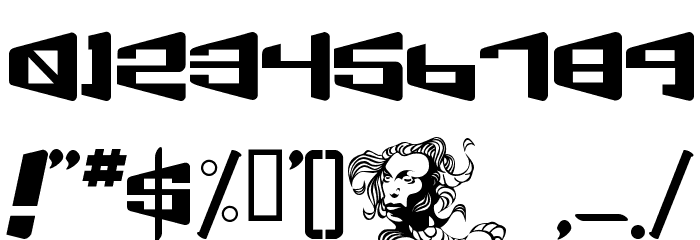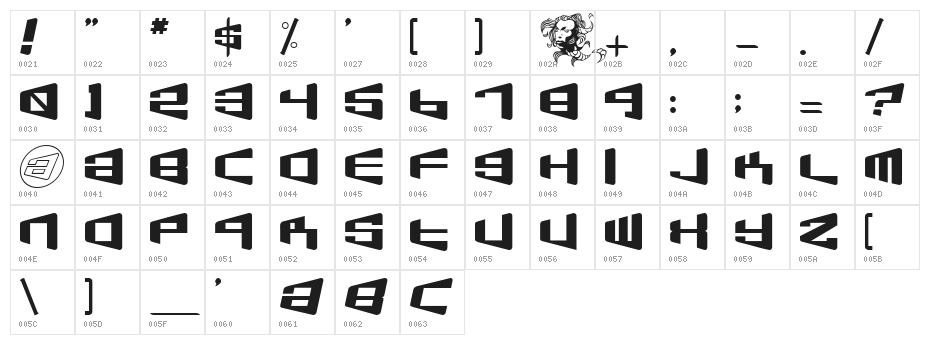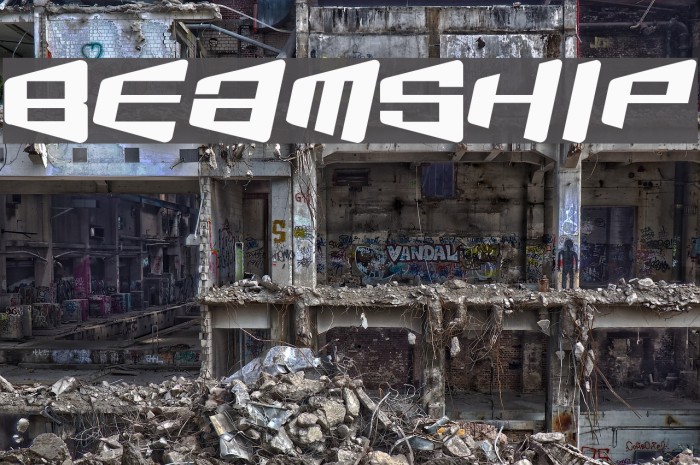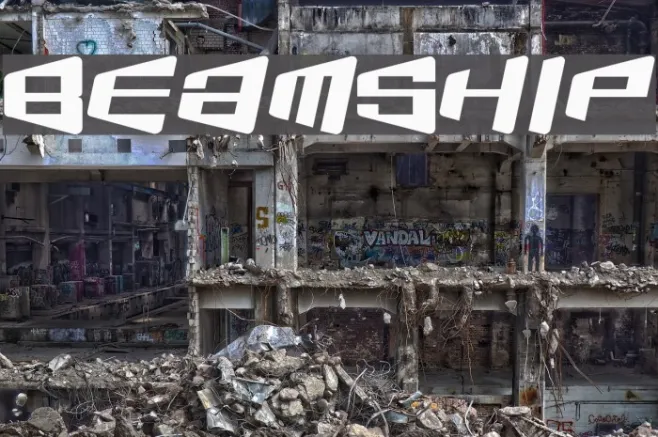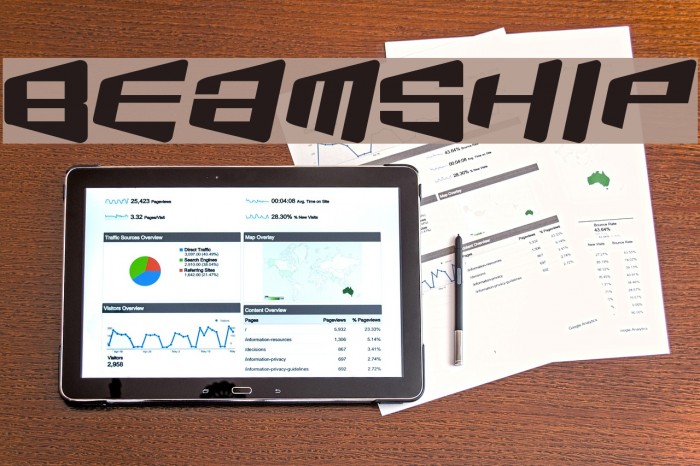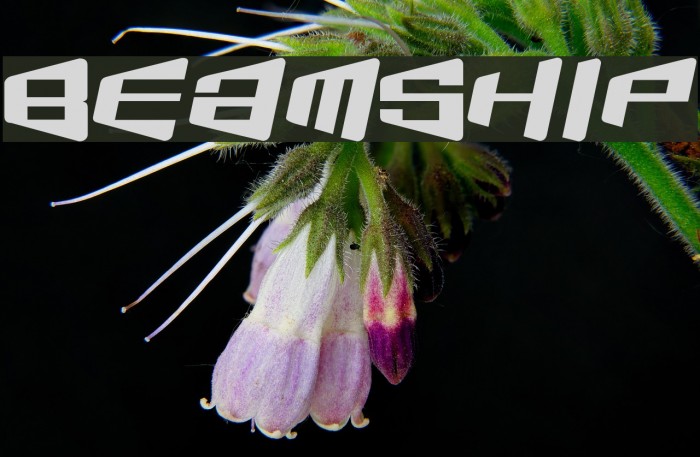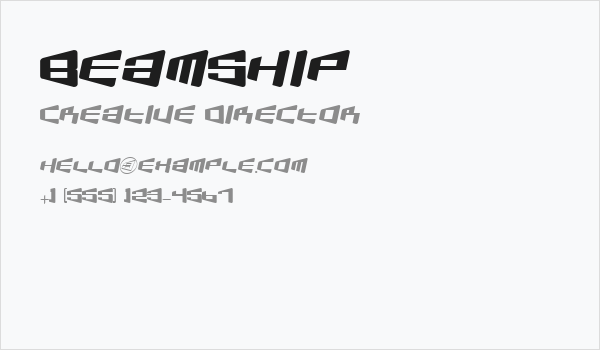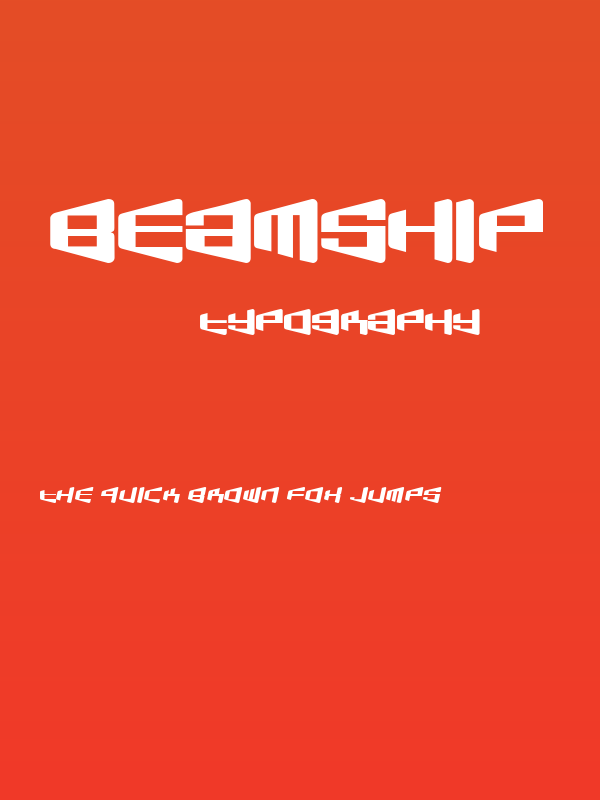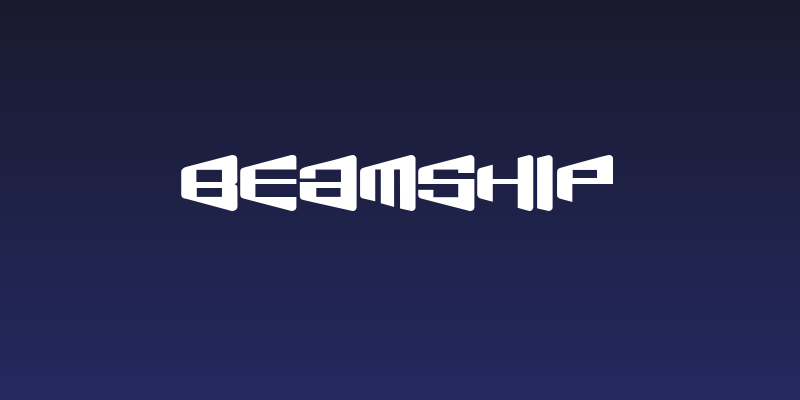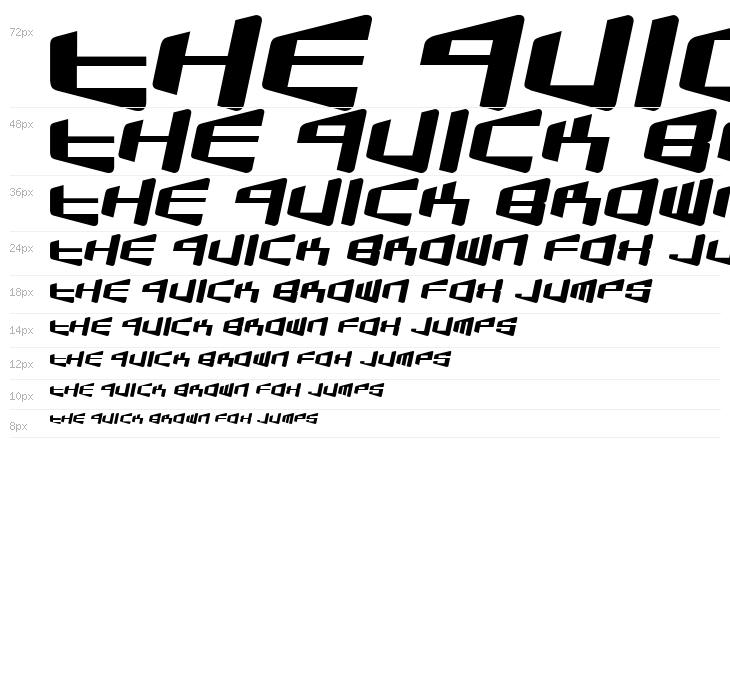
BeamShip Font
BeamShip Description
This font features a futuristic and angular design, characterized by its bold and geometric letterforms. The uppercase and lowercase letters maintain a consistent style, with sharp edges and a slightly slanted orientation that gives a sense of motion and modernity. The numerals and special characters follow the same design principles, ensuring uniformity across all glyphs. The font's unique style makes it stand out, suitable for projects that require a contemporary and edgy look. Its distinct appearance is ideal for use in science fiction themes, technology branding, or any creative work that aims to convey innovation and forward-thinking.
| Proposed Projects | Ideal for sci-fi themes, tech branding, video game titles, and innovative design projects. |